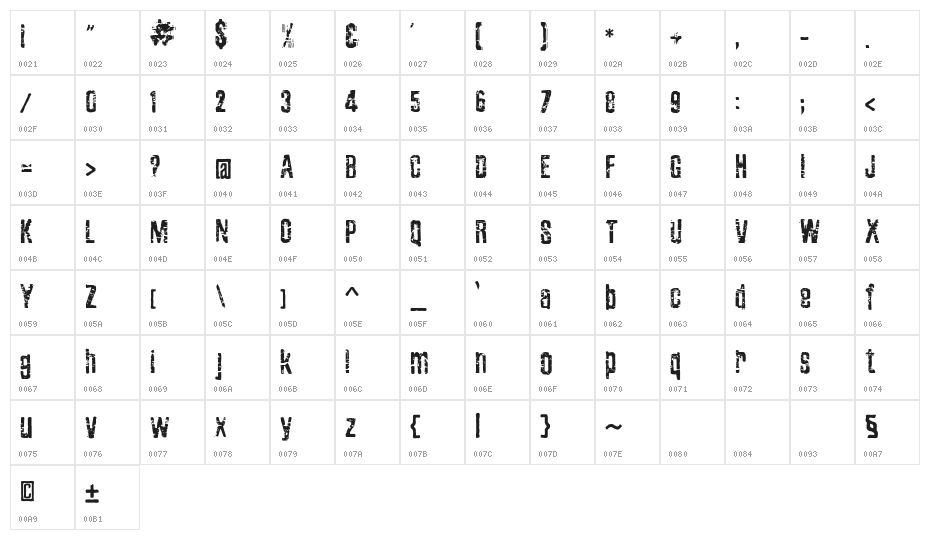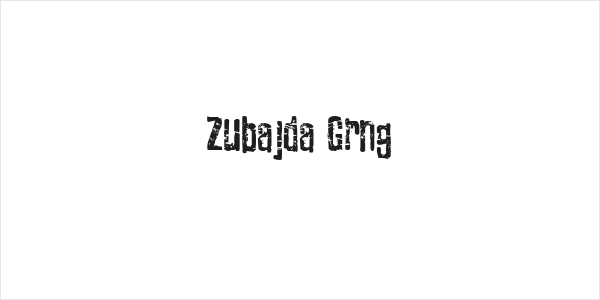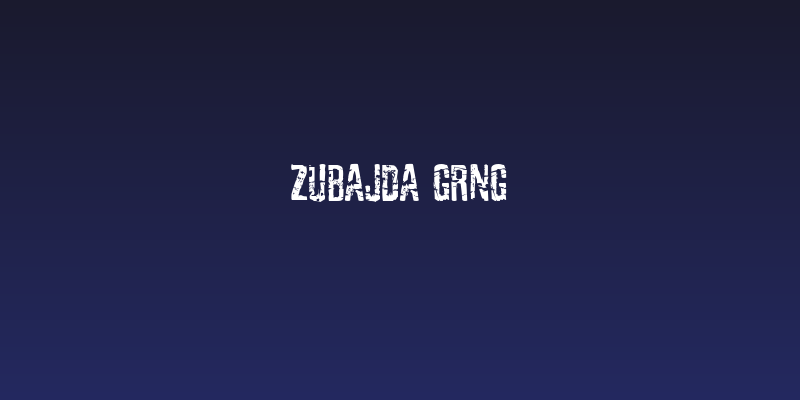
Zubajda Grng Font
Zubajda Grng Description
This font features a rugged, distressed appearance, giving it a grunge and weathered look. The characters are bold and have a rough texture, with uneven edges and a worn-out effect that suggests a vintage or industrial style. The uppercase and lowercase letters maintain a consistent design, while the numbers and special characters follow the same distressed theme. This font is ideal for projects that require a bold, eye-catching statement with a touch of edginess.
| Overall Style | Grunge, Vintage |
| Proposed Projects | Ideal for music album covers, posters, urban-themed designs, and branding that requires a gritty, industrial look. |